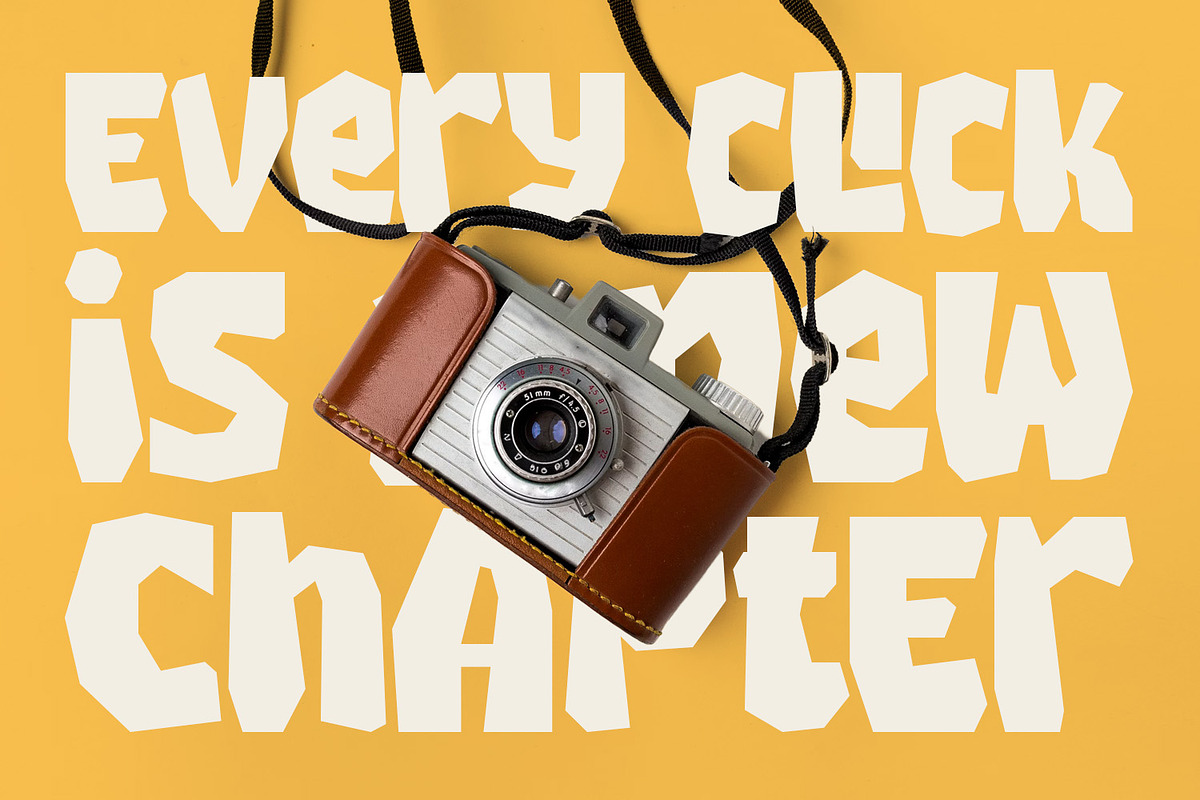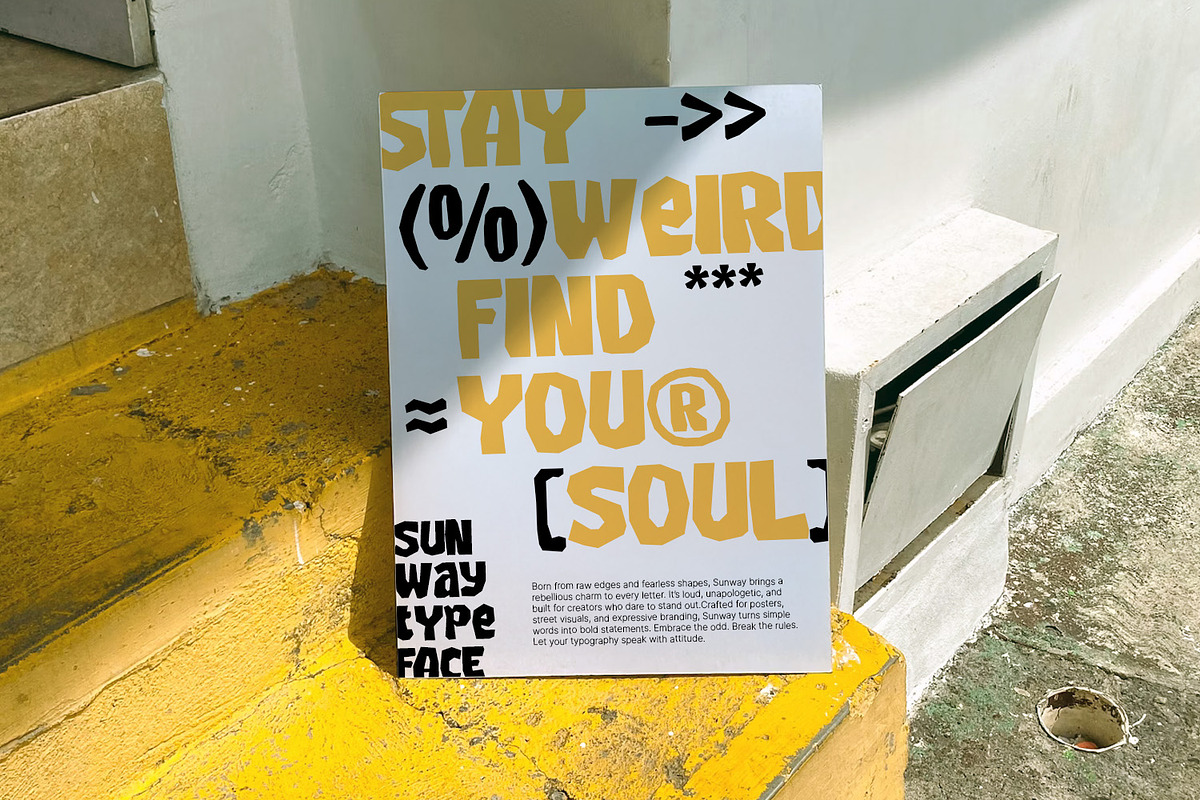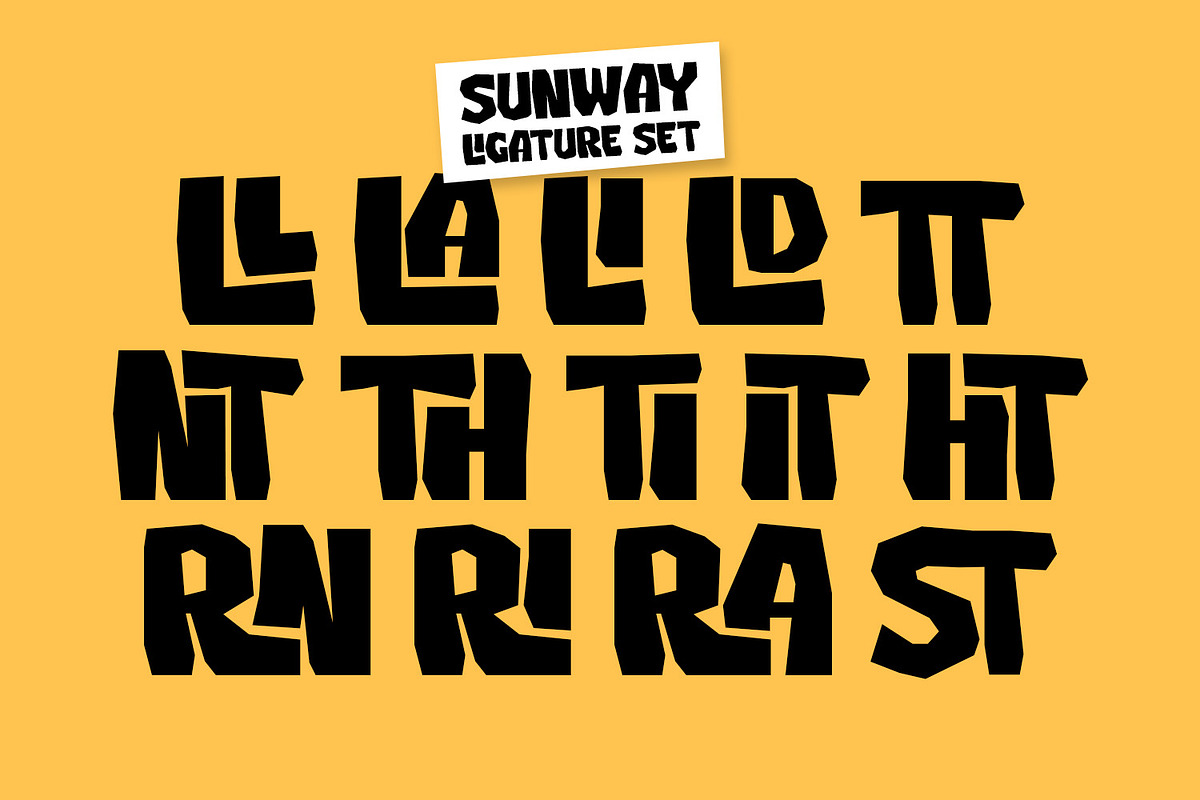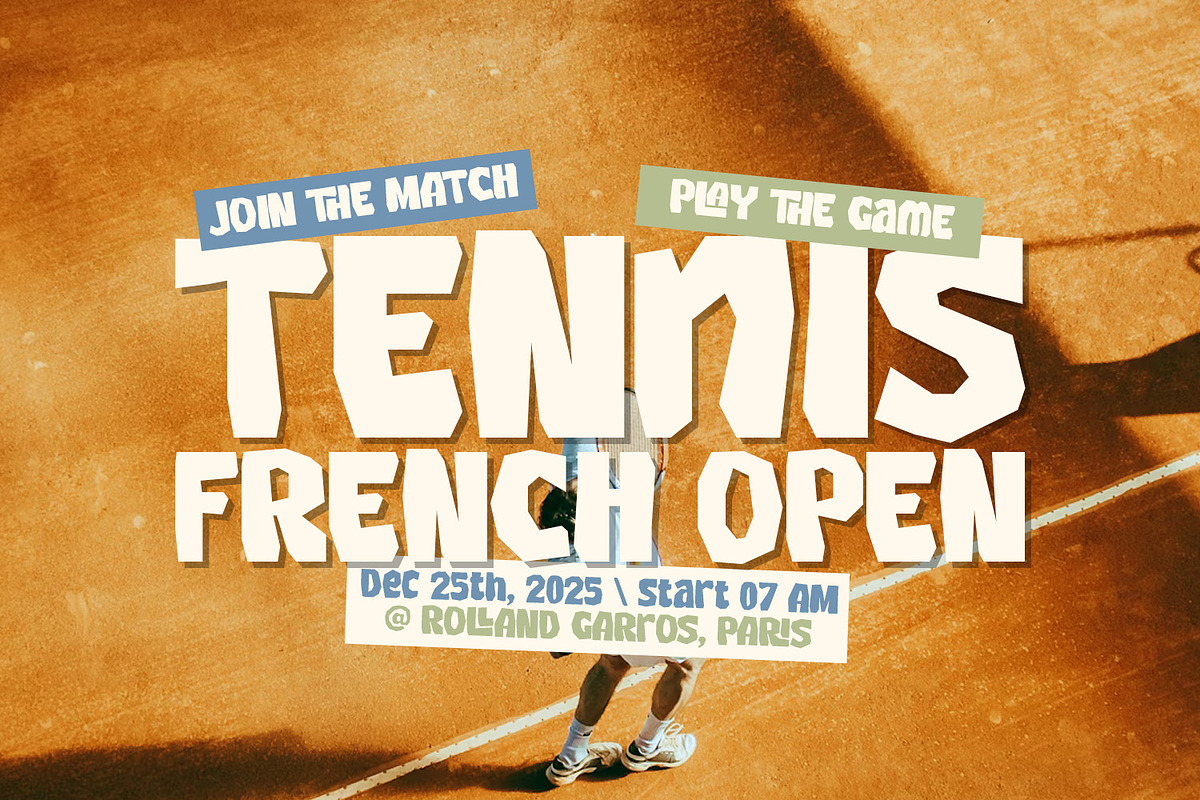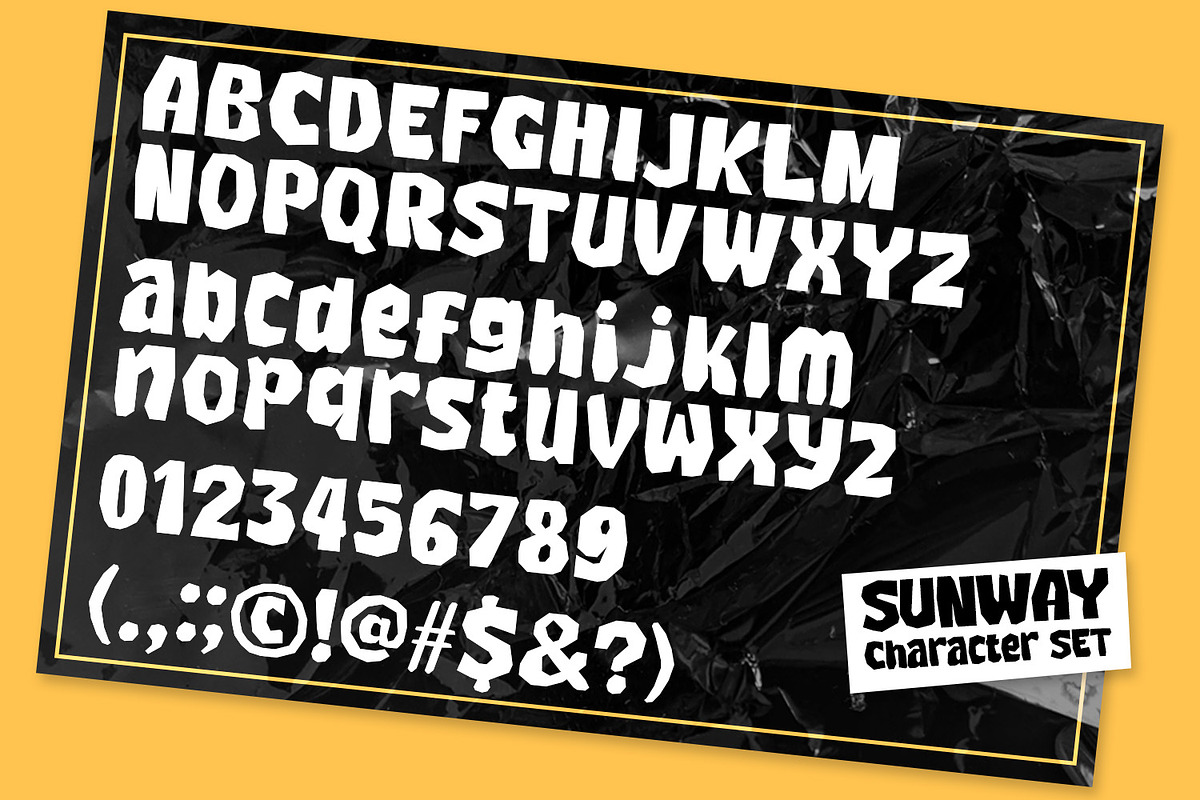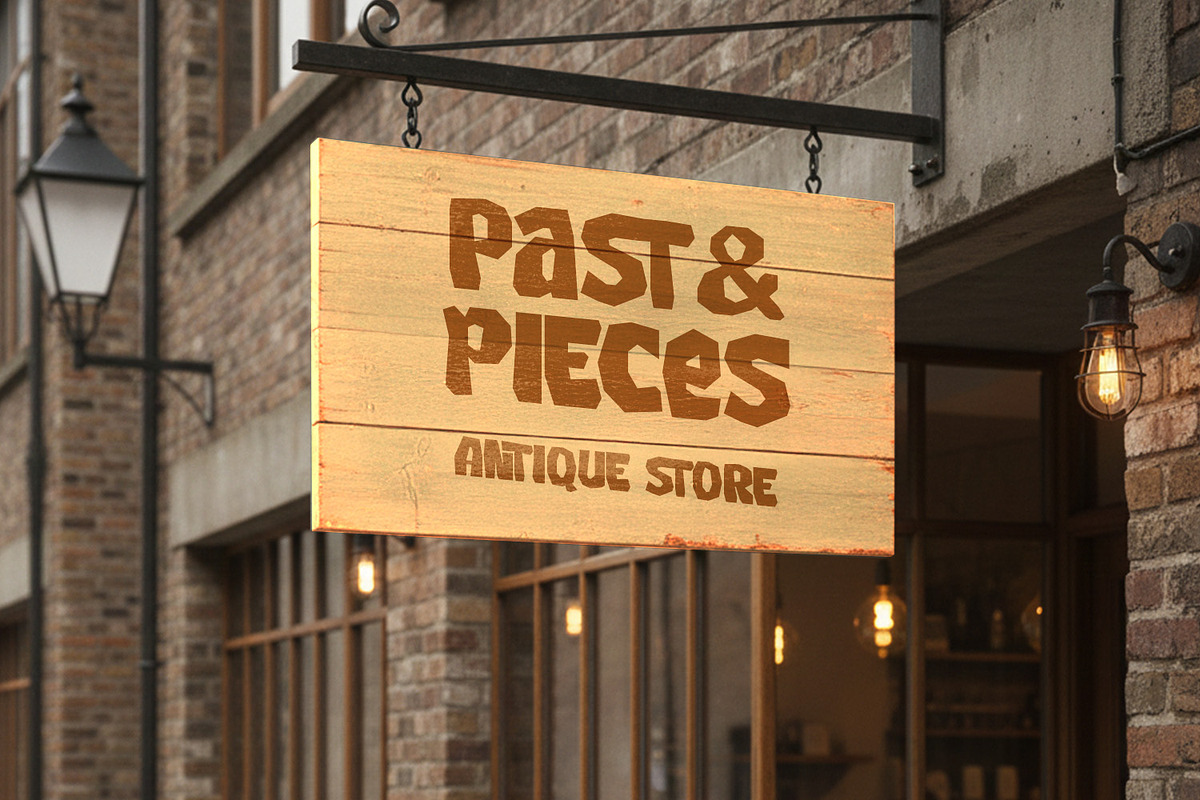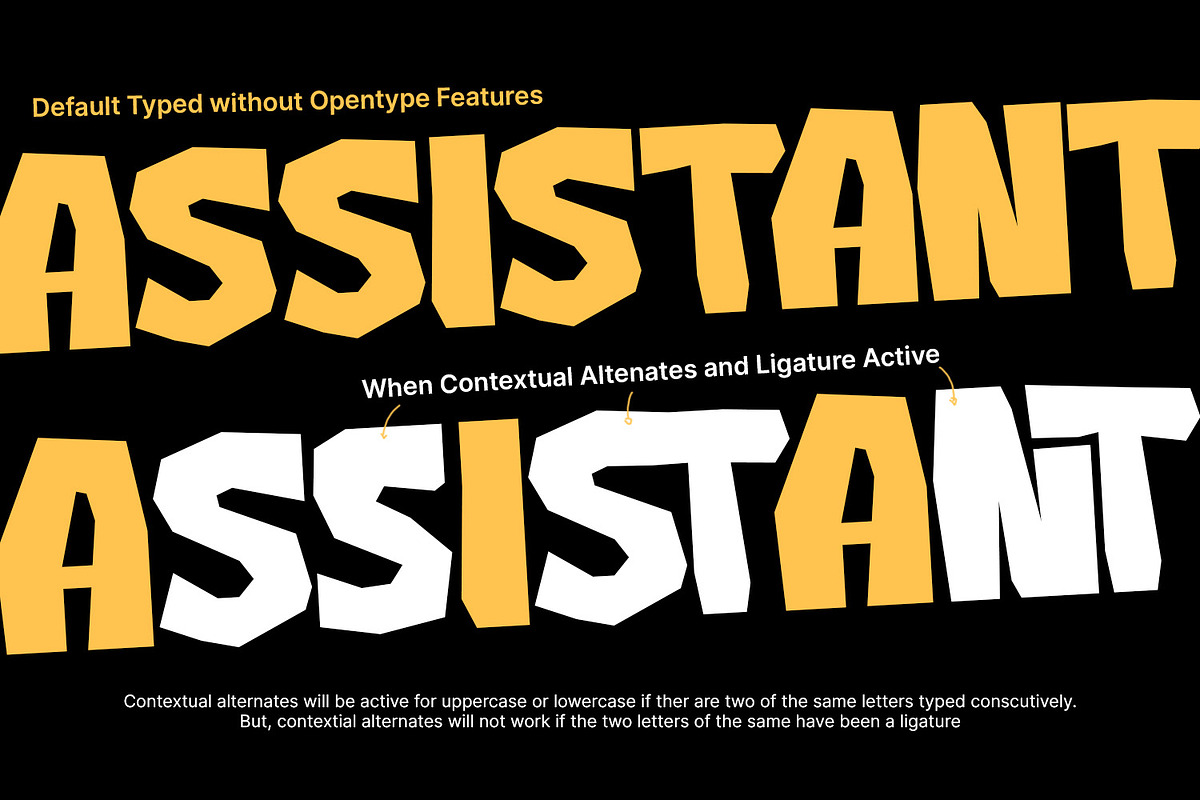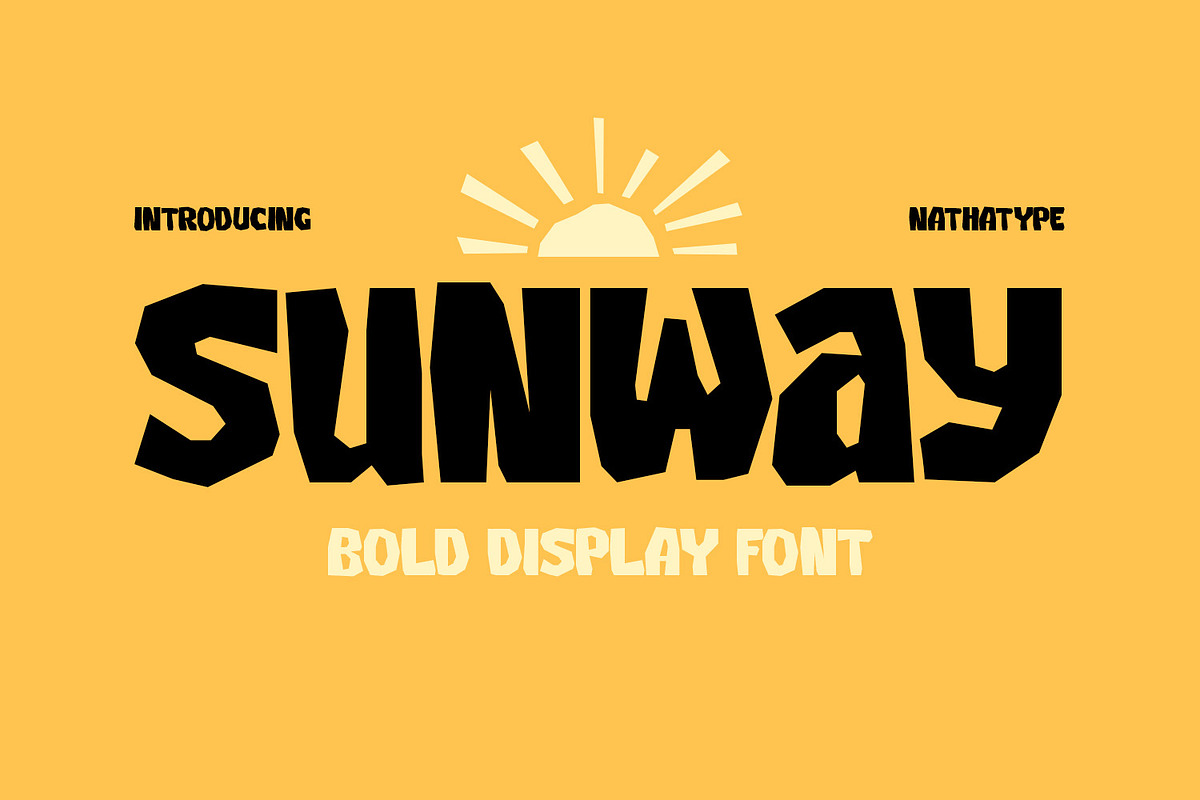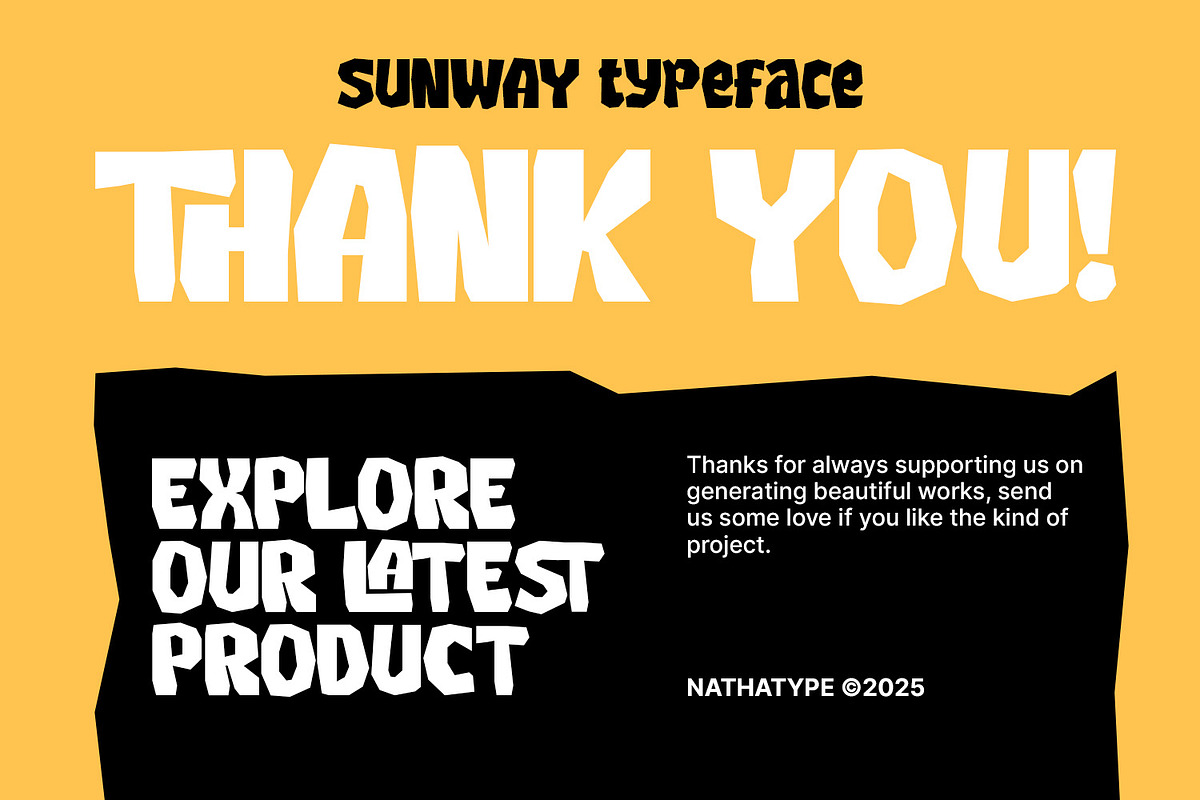
Sunway
Sunway is a powerful and modern display font. Crafted with a thick weight and smooth rounded letter shapes, Sunway stands out with its unique letter corners, which add a sharp, geometric edge to an otherwise soft and friendly form. This distinctive blend of curves and angles creates a contemporary style that feels both playful and futuristic, making Sunway an excellent choice for standout typography. In addition, enjoy the features here.
Sunway fits in logos, quotes, invitations, branding, posters, and many more designs. Find out more ways to use this font by taking a look at the font preview.